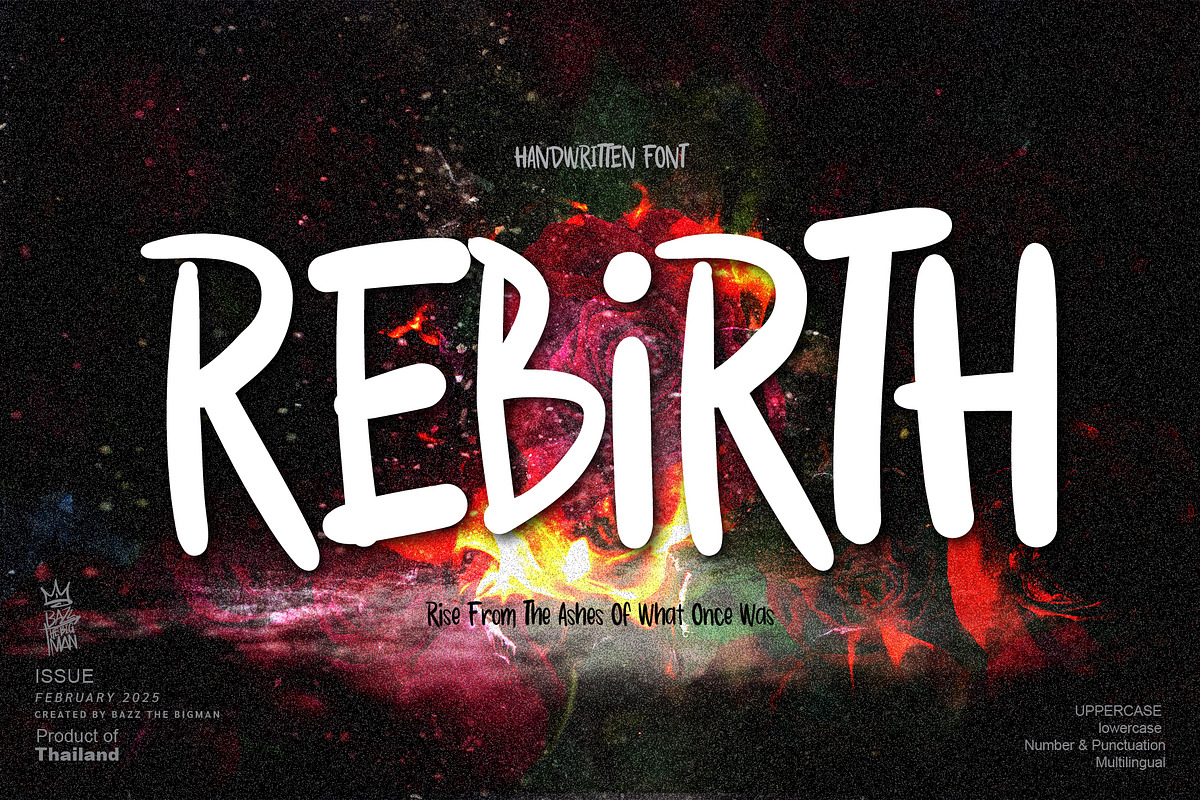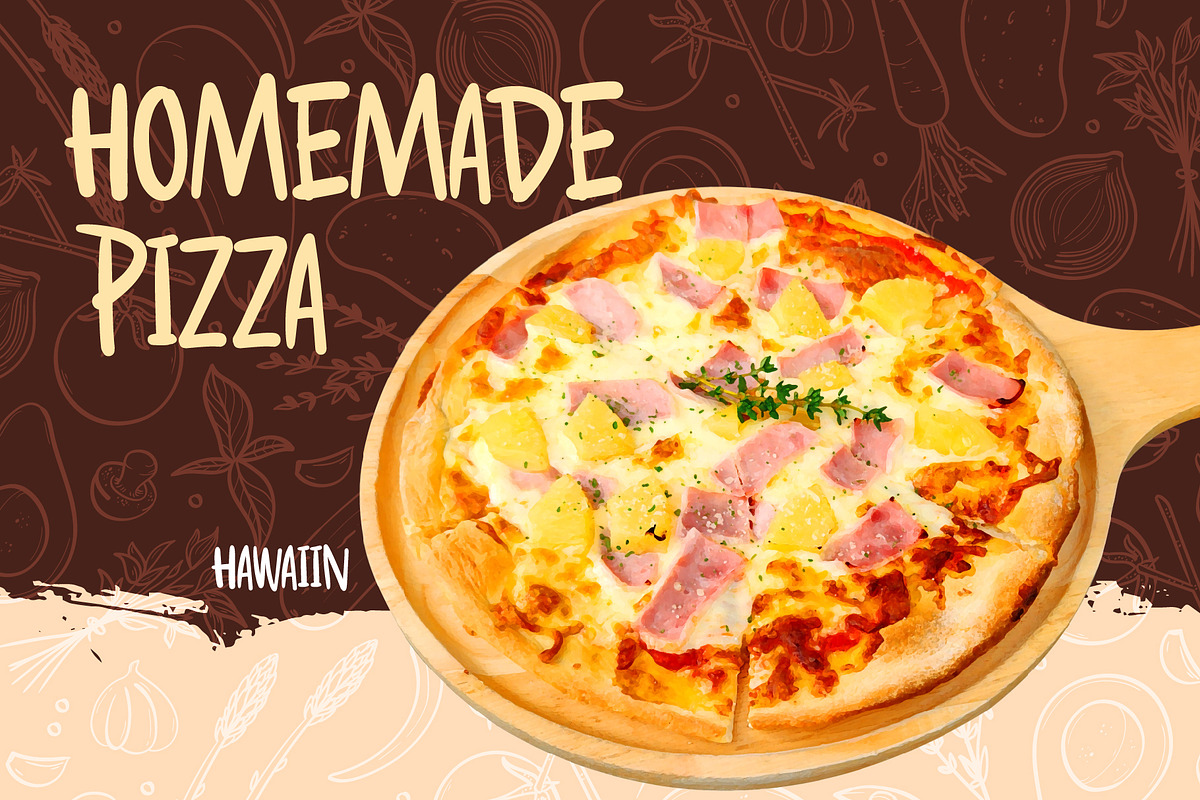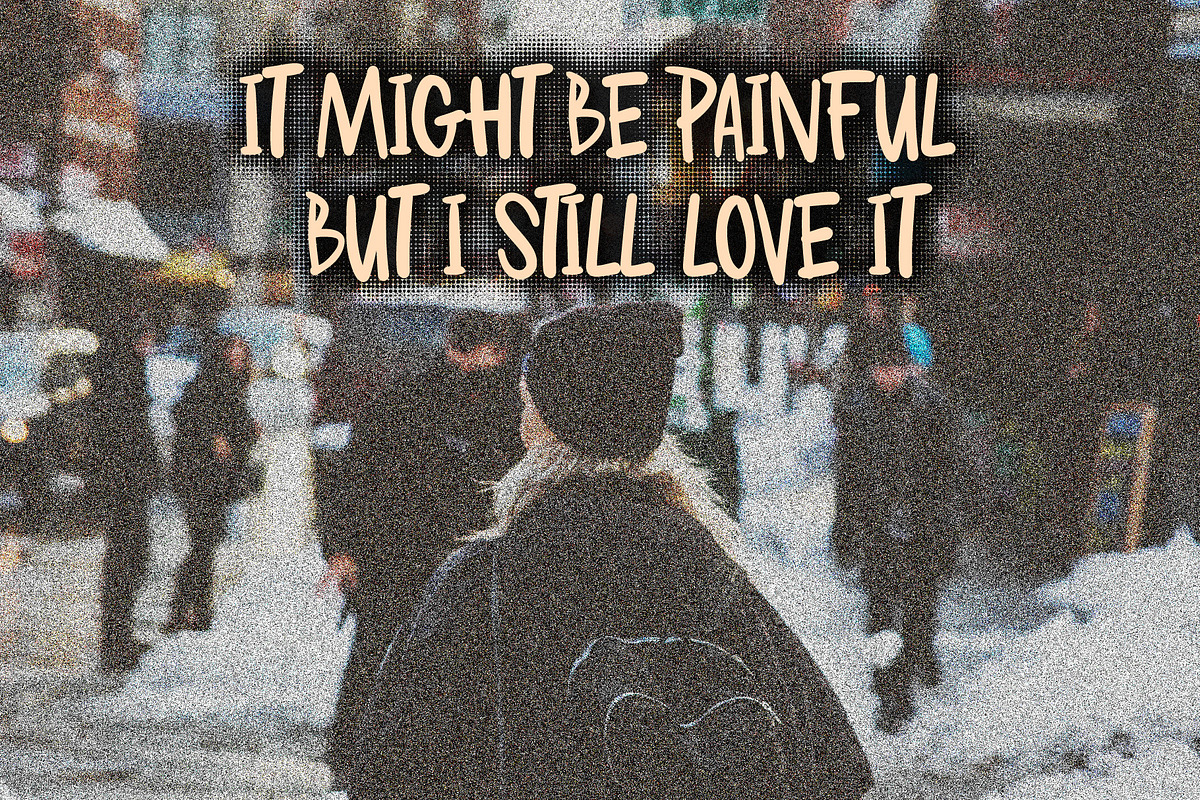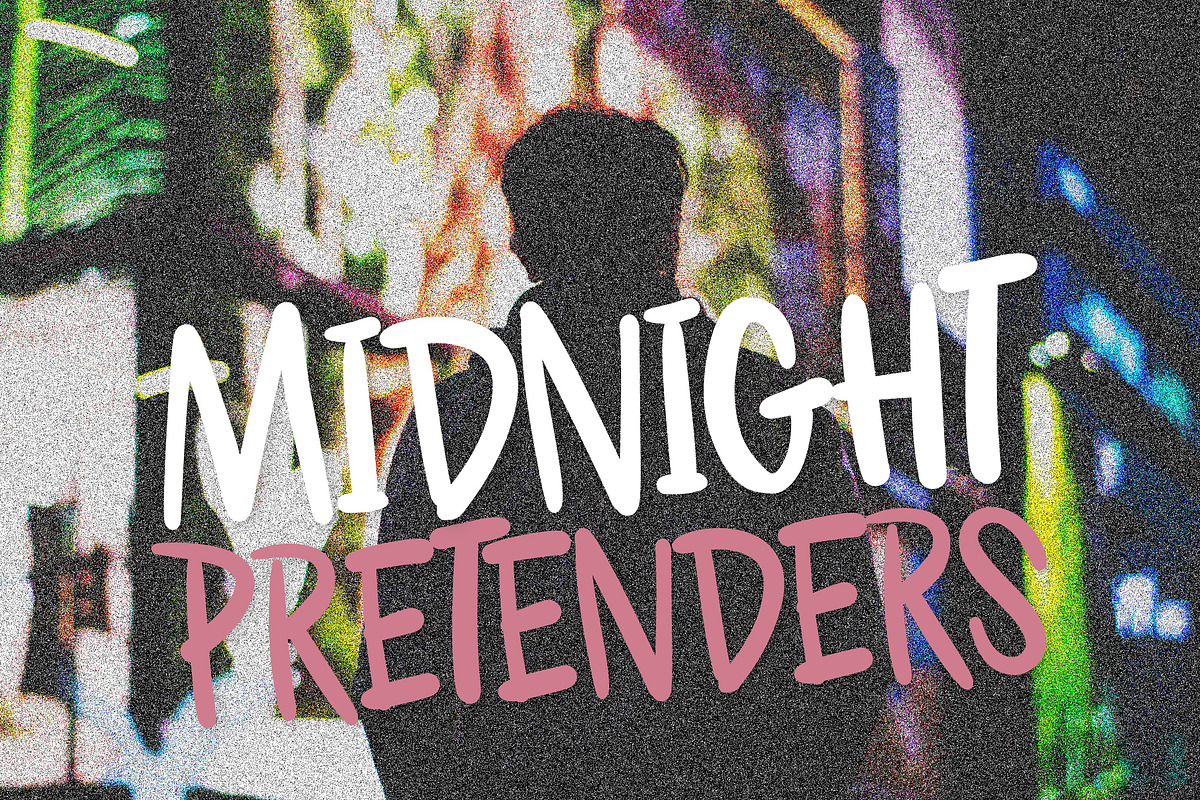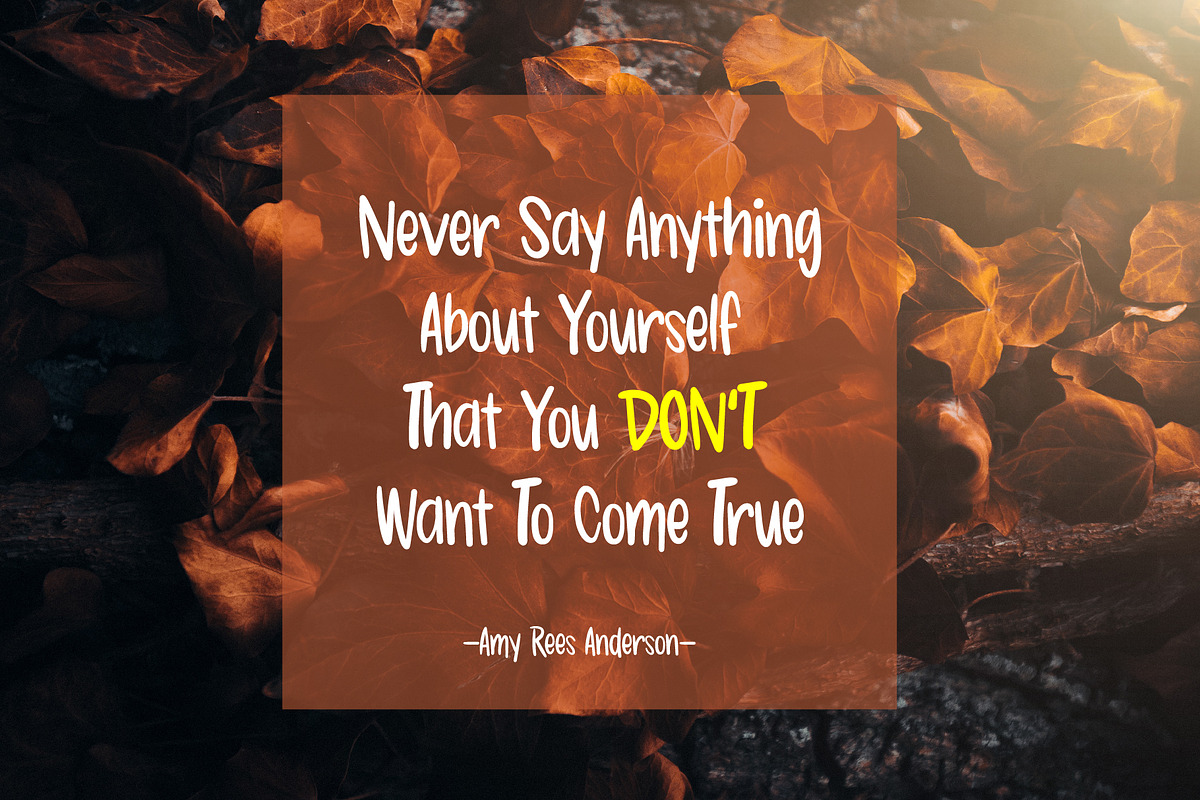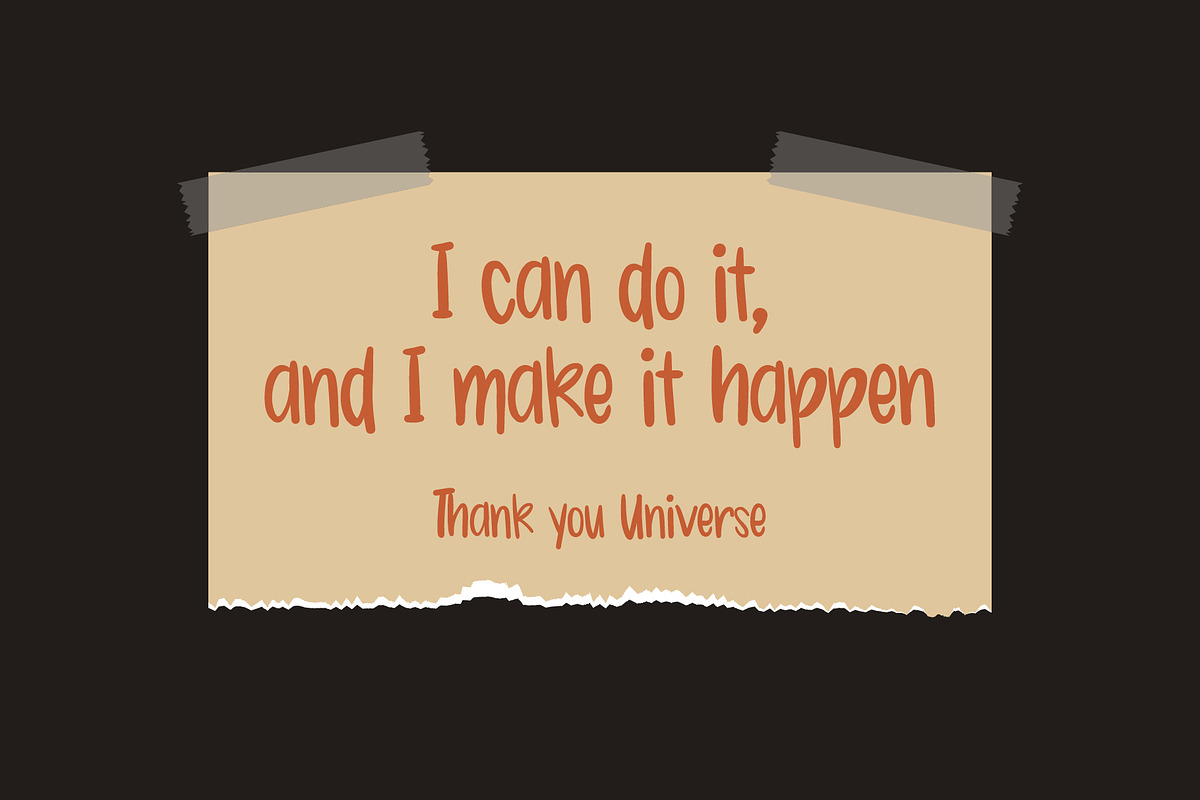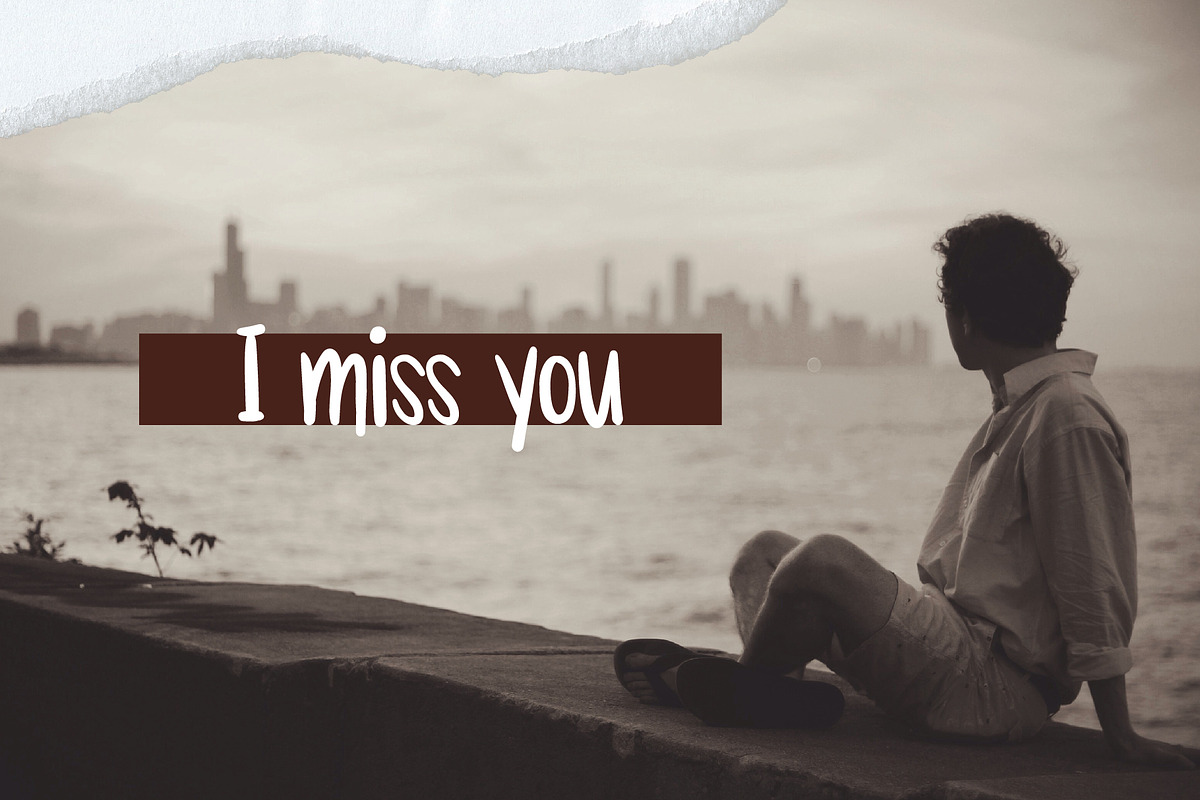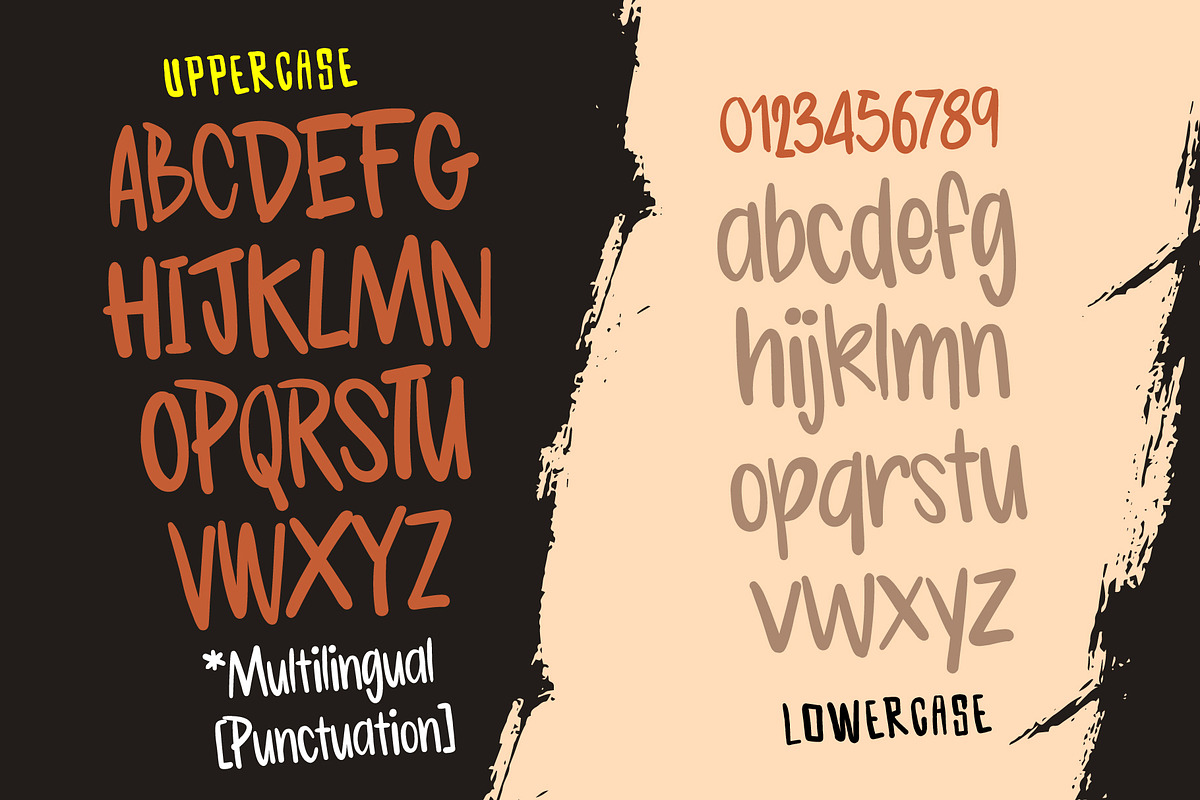
Rebirth
Experience the enchanting allure of Rebirth, a uniquely crafted font embedded with a funny touch. Let this font breathe new life into your upcoming projects, making them not just visually appealing, but also a source of lasting impression and inspiration. Conjured with a creative touch, Rebirth is not just a font, but a design element that stirs the senses, captivates the eyes, and encaptures the heart. So allow Rebirth to mark its unique impression and let your project shine with undying grandeur.